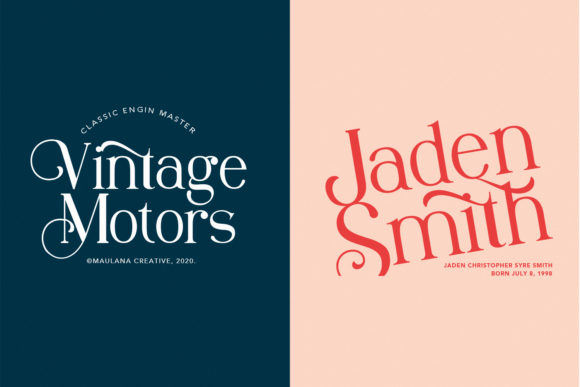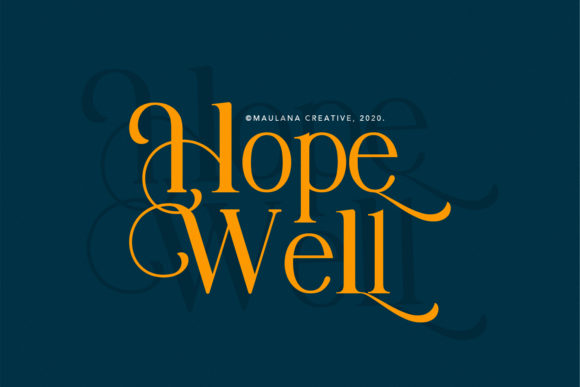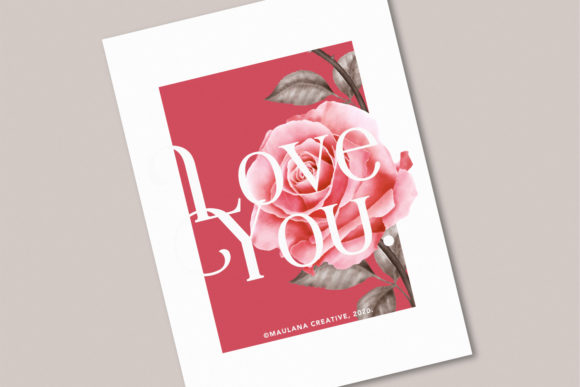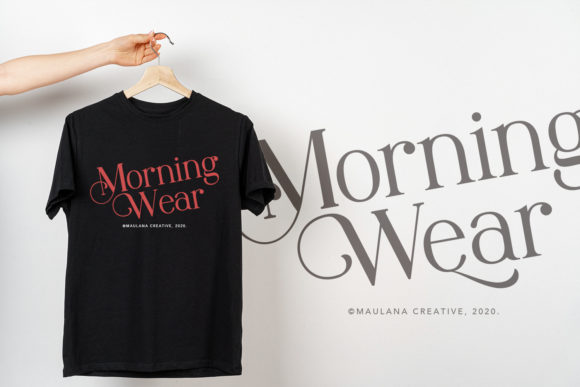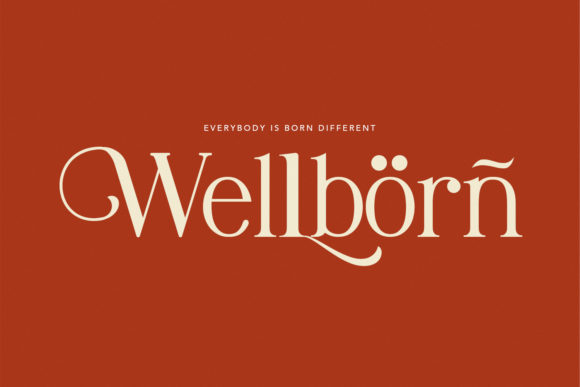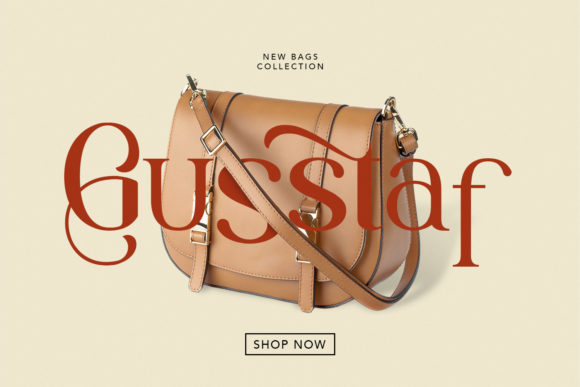
Discover the Timeless Charm of Nue Syierift Font
Have you ever been working on a creative project and suddenly stumbled upon the perfect font to bring it all together? For me, it was a late night brainstorming session where I was trying to find the right aesthetic for a vintage-inspired poster. After scrolling through countless font options, I finally landed on Nue Syierift Font – and it was love at first sight. This beautiful serif font exudes a playfully nostalgic feel that instantly transports you back in time.
Key Features of Nue Syierift Font
- Unique blend of modern and vintage elements, making it ideal for creative projects requiring a touch of sophistication.
- Comprehensive character set, including a wide range of languages and symbols, making it a valuable resource for designers worldwide.
- Perfect for designers working on projects that require a unique, artistic touch, such as branding, typography, and creative visual content.
Honest Review: Nue Syierift Font
As a designer, I’m always on the lookout for high-quality design resources to elevate my creative projects. The Nue Syierift Font is one such find that I’d like to share my thoughts on.
- What works well: ✨ The Nue Syierift Font is incredibly versatile and can be used in a variety of contexts, from headings to body text. Its modern aesthetic and clean lines make it perfect for creating a professional and sleek design.
⚠️ One limitation I’ve noticed is that the font doesn’t come with a lot of character variations, which may limit its use in more complex design projects. However, for most creative projects, it should be more than sufficient.
Overall, I’m really impressed with the Nue Syierift Font. It’s a high-quality design resource that’s perfect for designers looking to add a touch of modernity to their projects. Whether you’re working on a personal project or a client’s website, this font is definitely worth checking out.